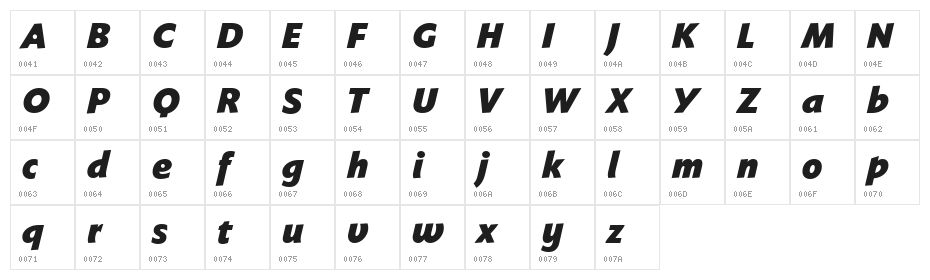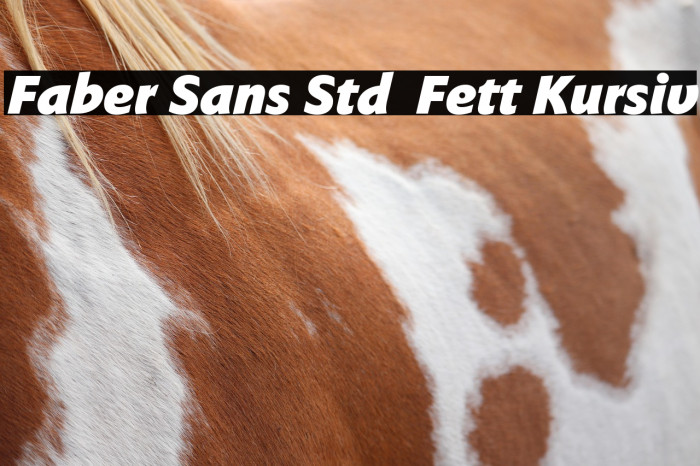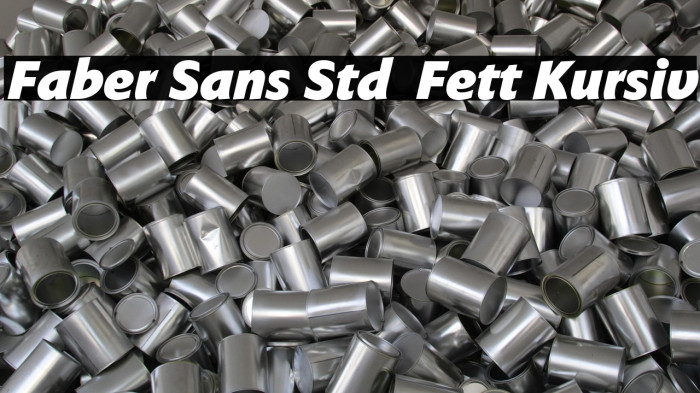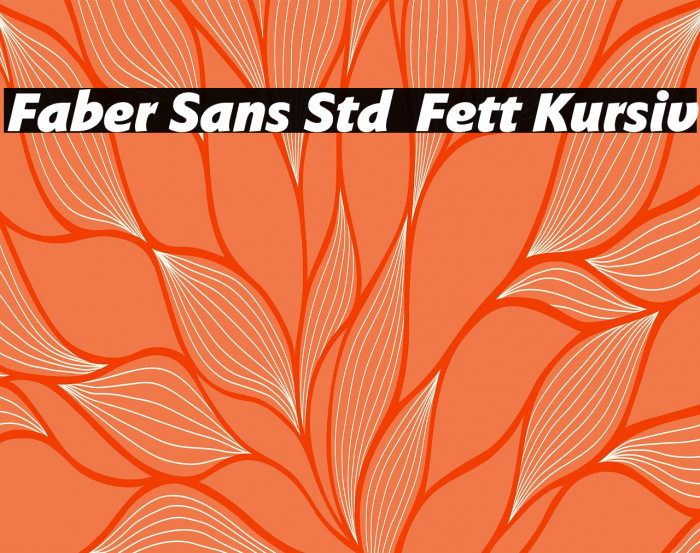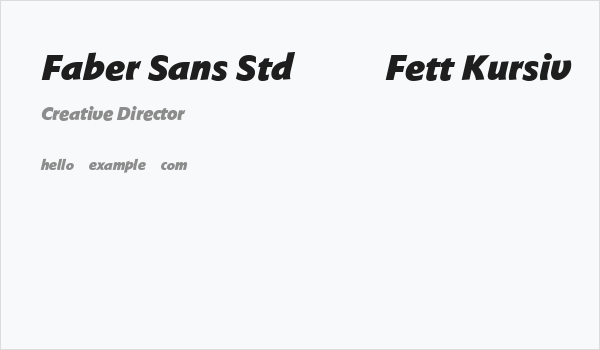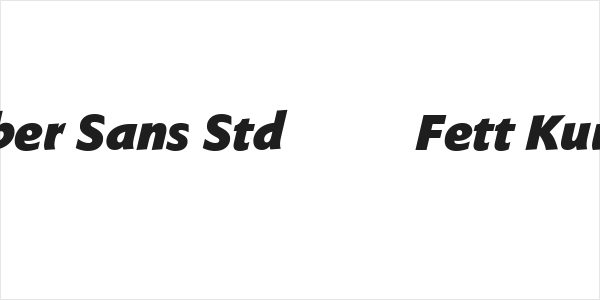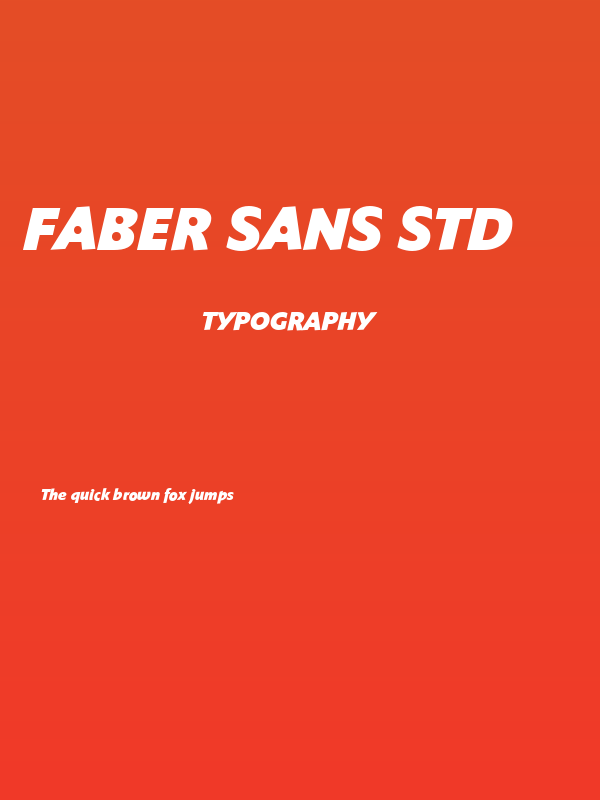
Faber Sans Std 96 Fett Kursiv Font
Faber Sans Std 96 Fett Kursiv Description
This font exhibits a bold and dynamic sans-serif style with a distinct italic slant, giving it a sense of movement and energy. The characters are robust and well-defined, featuring a consistent stroke width that enhances readability. The uppercase and lowercase letters maintain a harmonious balance, while the numerals and special characters are clear and easily distinguishable. The overall appearance is modern and assertive, making it suitable for impactful design projects.
| Use Case | Headlines, Logos, Branding |
| Proposed Projects | Ideal for branding, advertising, headlines, and posters where a strong, modern presence is desired. |